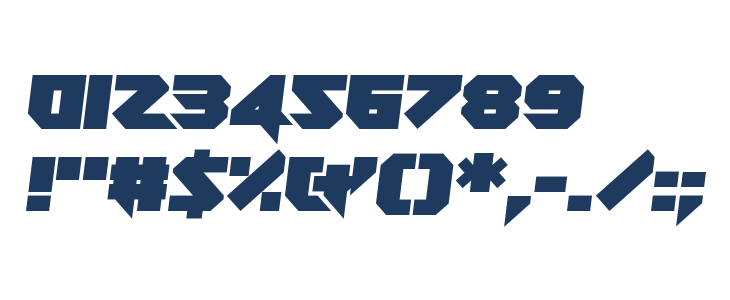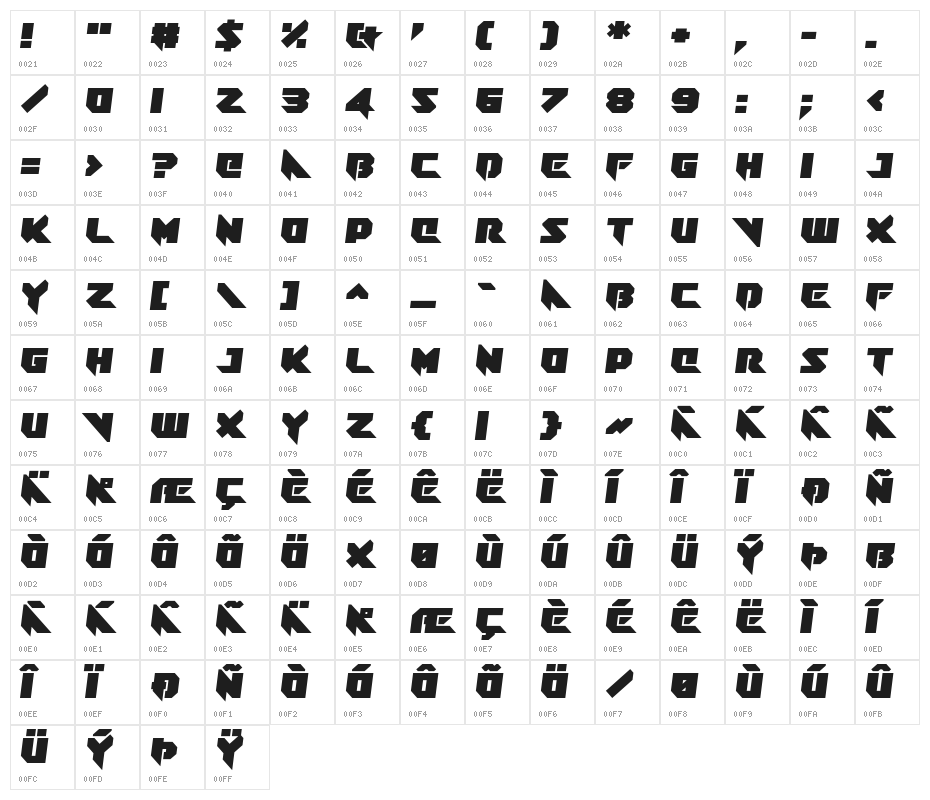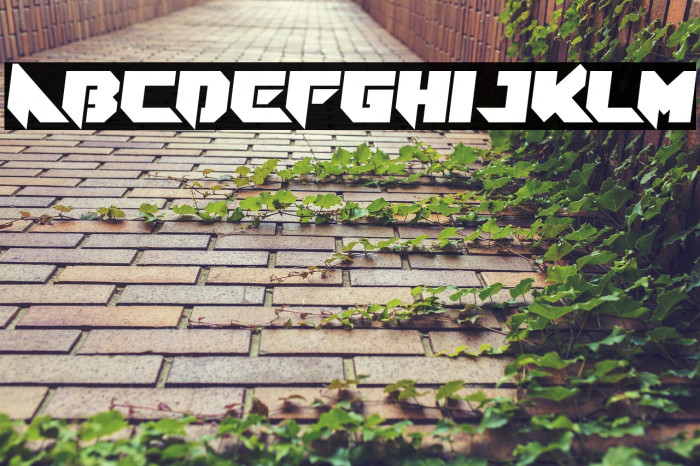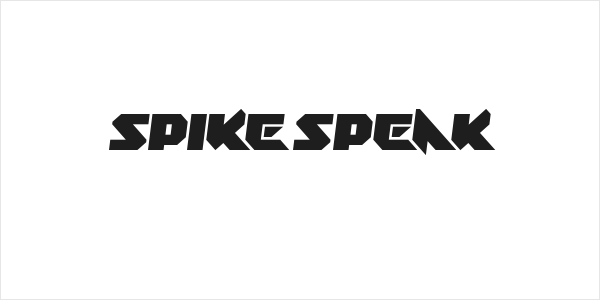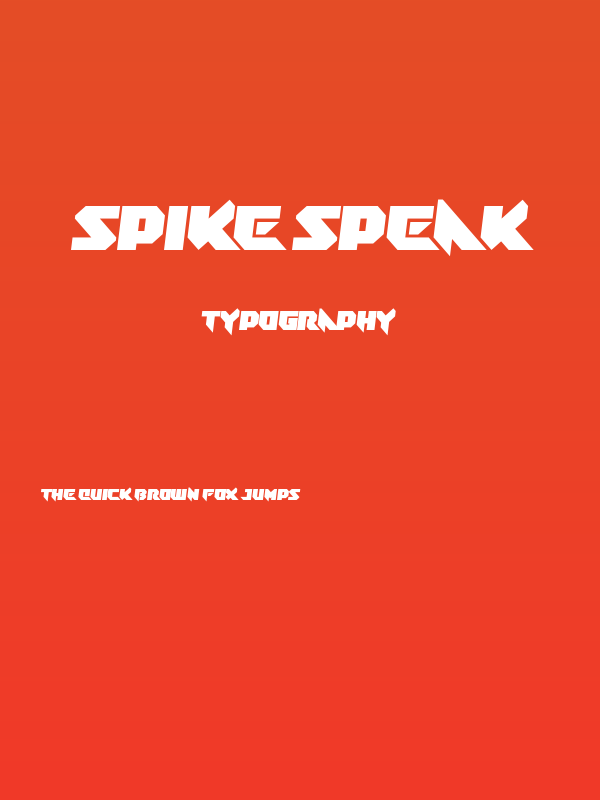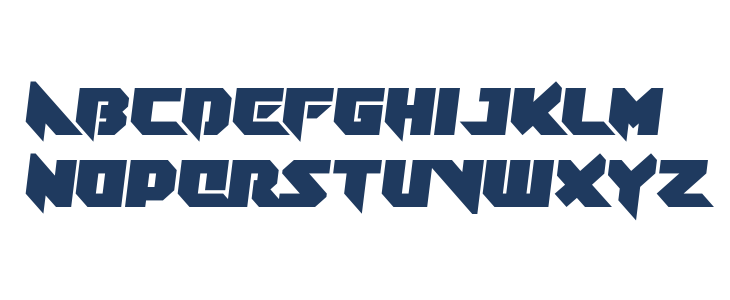
Spike Speak Font
Spike Speak Description
This font features a bold and aggressive design with sharp, angular edges and a geometric structure. Each character is crafted with a distinct, edgy style that gives off a futuristic and dynamic vibe. The uppercase and lowercase letters maintain a consistent aesthetic, with the lowercase slightly smaller but equally impactful. Numbers and special characters follow the same design principles, ensuring uniformity across all glyphs. The font's boldness and unique style make it stand out, ideal for projects that require a strong visual impact.
| Overall Style | Futuristic, Dynamic |
| Proposed Projects | Ideal for gaming titles, sci-fi posters, branding for tech companies, and edgy graphic designs. |